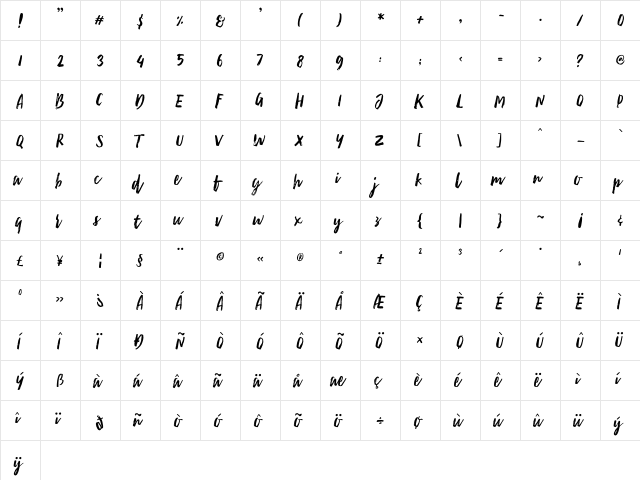
Ample Script Regular
Design Context for Ample Script Typeface
Ample Script brings a calligraphic fluidity to the page — its connecting strokes and expressive curves give it an unmistakably human quality.
Font Pairing: Combine Ample Script with a simple geometric sans for maximum contrast — the tension between flowing curves and clean structure is a classic typographic pairing.
Pro Tip: Pair Ample Script with a clean sans-serif for supporting text. The contrast between fluid script and geometric structure creates an elegant typographic hierarchy.